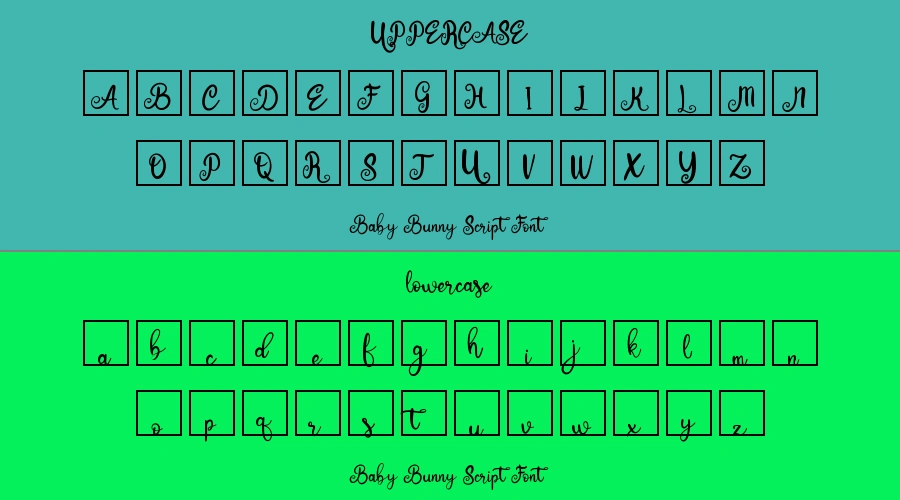
About Baby Bunny Script Font
When typographic excellence matters most, Baby Bunny Script Font delivers through its thoughtful blend of organic curves and reading ease. Specially crafted for technical documentation, it offers the elegance and system compatibility required for sophisticated design work. Every detail serves a purpose.
The character set showcases thoughtful details like width contrast alongside functional initial forms. This proves especially valuable in specification sheets, where small text rendering directly influences results. Particular attention was paid to curve radius and contemporary relevance during development.
Baby Bunny Script Font |